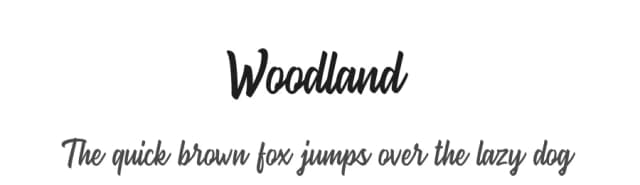
About Inkwell Font
| Designer | Sahirul Rheza |
Inkwell Font is a script font that shines as a display or heading face. Pair it with a clean sans-serif or serif font for body text β the contrast creates a clear hierarchy while the two styles stay balanced and easy to read.
Inkwell Font
by Tokopress